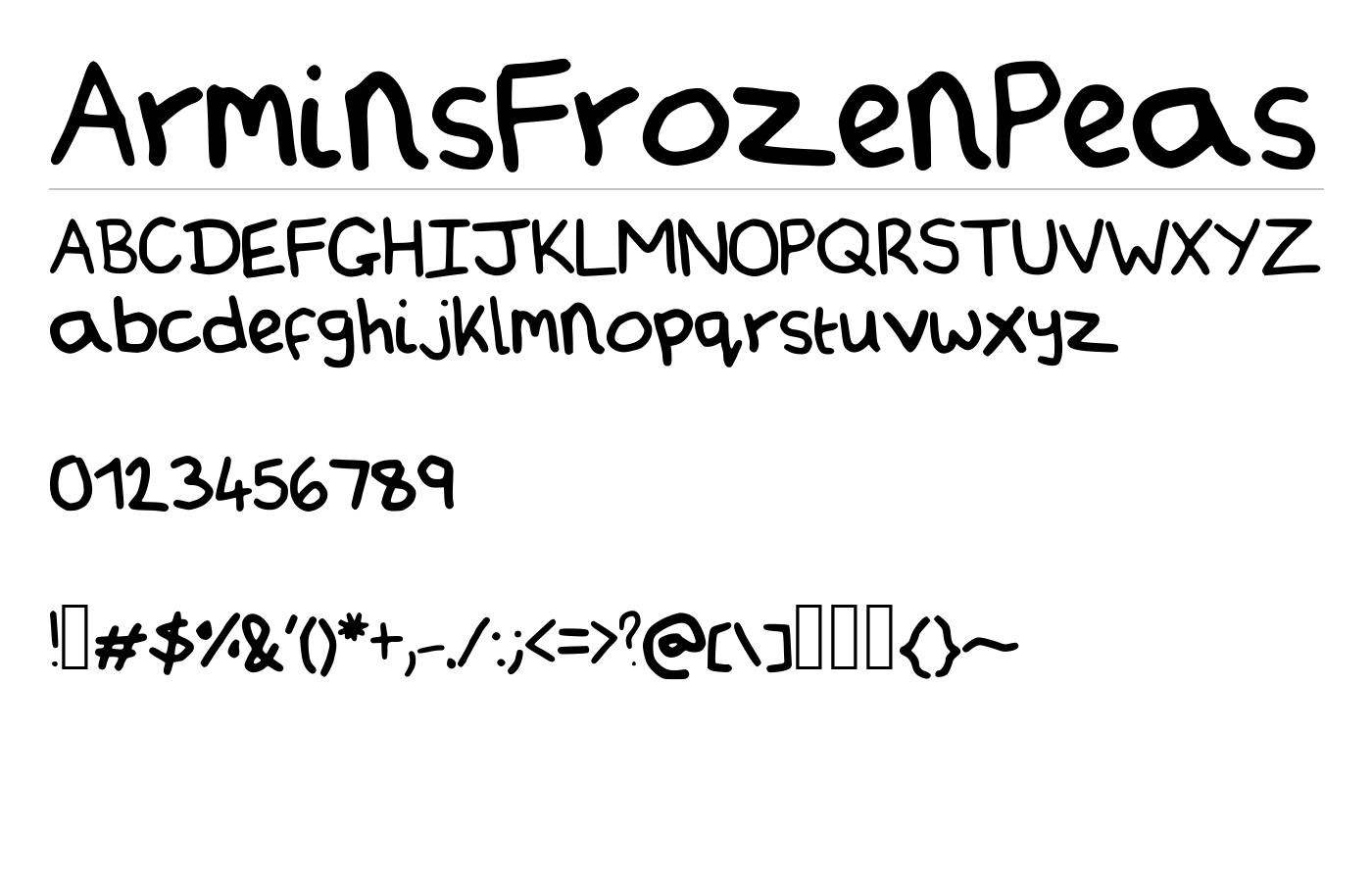
ArminsFrozenPeas is a playful, hand-drawn sans serif font with a casual and friendly personality. Its irregular, slightly chunky strokes and uneven letterforms create an approachable, informal feel, making it ideal for fun, creative projects like children's books, casual branding, and quirky headlines. This font works best in designs that seek a warm, personal touch rather than formal elegance.
ArminsFrozenPeas Font